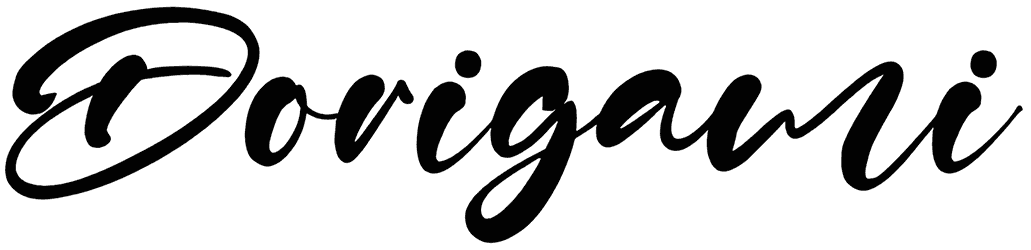
Dorigami Font
Dorigami is a script font that defies the boring and repetitive stereotype of this group and can make a powerful appearance. This beach font has an advertising style that can provide a timeless class on banners, posters, business cards, and book covers that is flexible.
So use your creativity and use the illegibility of this font as a powerful tool for your growth. Put it into the content so you can use a solid plan on paper to make your project shine.